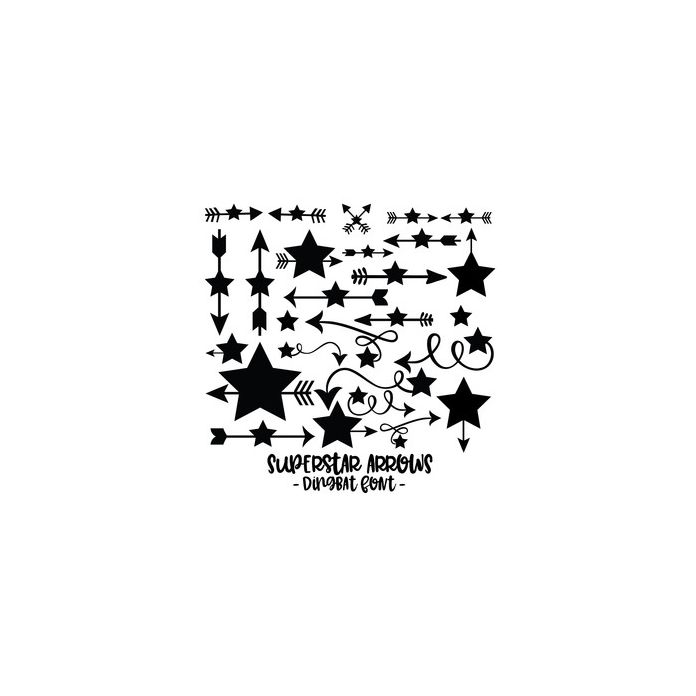
Superstar Arrows - Star Arrow Dingbat Font. Hand drawn font, includes 26 arrows. Great for planners, scrapbooking and more! For more design ideas, coordinating designs & products and inspiration, please visit my blog http://www.sarahhurleyblog.com